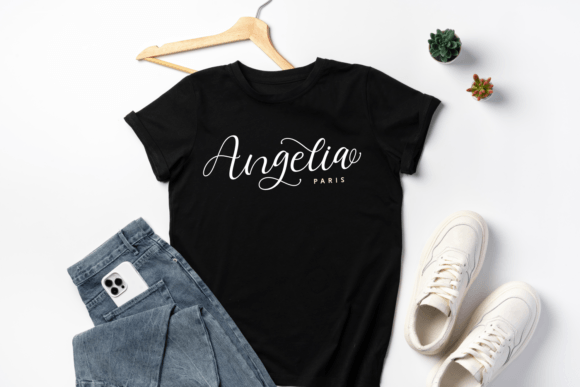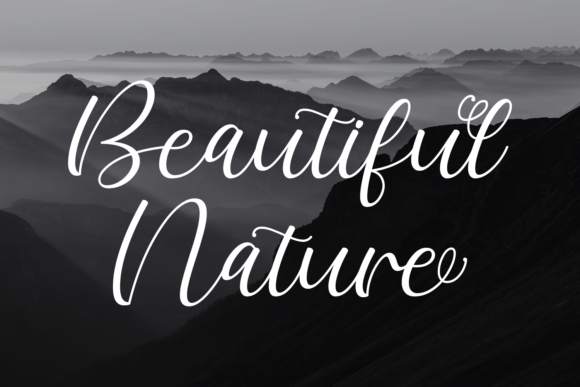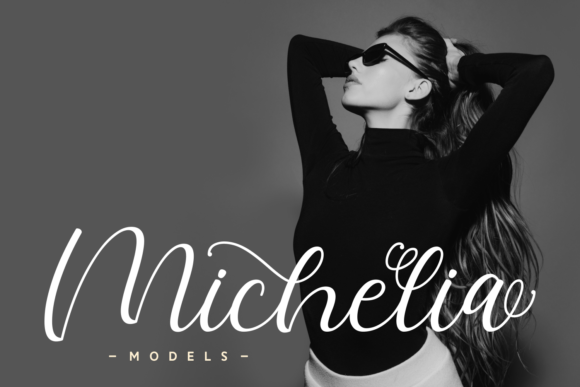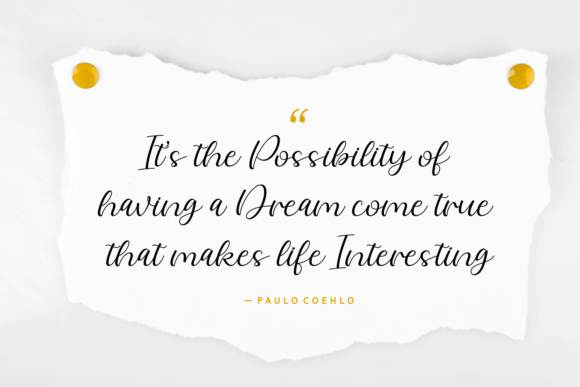
Introduction to Malika Bright Font
Have you ever found yourself staring at a blank page, feeling the pressure to create something truly unique for a special project? Maybe it’s a wedding invitation, a branding campaign, or a social media graphic – whatever the task, the right font can make all the difference. For designers and creatives, the search for the perfect font can be a daunting one, but what if I told you there’s a solution that’s as stylish as it is sophisticated?
Enter the Malika Bright Font, a modern calligraphy font that’s perfect for adding a touch of elegance to any design. Whether you’re working on a high-end branding project or a more personal creative endeavor, this font is sure to impress. With its high-quality design and transparent background, it’s a valuable resource for any designer looking to elevate their work.
Key Features of Malika Bright Font
- Translucent background, allowing for seamless integration with various design elements.
- Malika Bright Font is a versatile design resource suitable for various creative projects, from digital art to print media.
- Perfect for designers and artists seeking a modern, high-quality font for their next project.
Honest Review: Malika Bright Font
I recently had the chance to work with the Malika Bright Font, and I must say it’s been a game-changer for my creative project. This high-quality font is a valuable design resource that offers a unique and stylish look.
The design is modern, sleek, and elegant, making it suitable for a wide range of creative projects. The font’s unique characteristics and high-quality rendering make it a great choice for designers looking to elevate their work.
Some limitations I’ve encountered are the font’s limited support for certain languages. Additionally, the font may not be suitable for all design applications, particularly those requiring complex typography.
- ✨ High-quality design suitable for various creative projects
- ✨ Versatile and modern look
- ⚠️ Limited support for certain languages
- ⚠️ May not be suitable for complex typography
Overall, I’m impressed with the Malika Bright Font. Its high-quality design, versatility, and free download make it a valuable resource for designers. However, its limitations should be taken into consideration before making a final decision.
Malika Bright Font is a high-quality design resource perfect for creative projects that require a touch of elegance and sophistication. With its transparent background, this font is ideal for backgrounds, overlays, and other design elements.
Malika Bright Font is ideal for use in various design projects, including:
– Branding and marketing materials
– Wedding invitations and stationery
– Magazine and newspaper layouts
– Social media graphics and ads